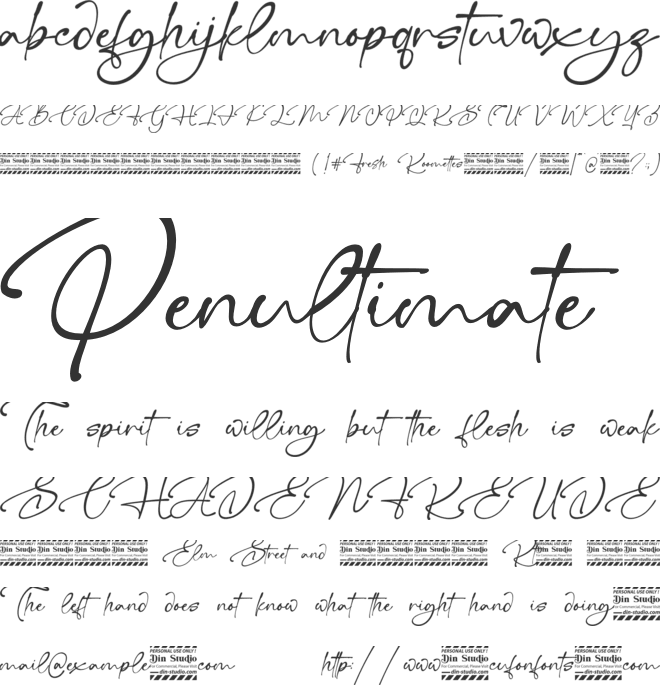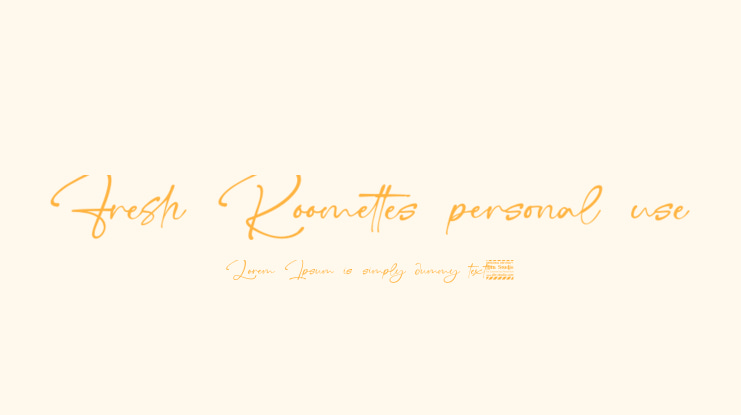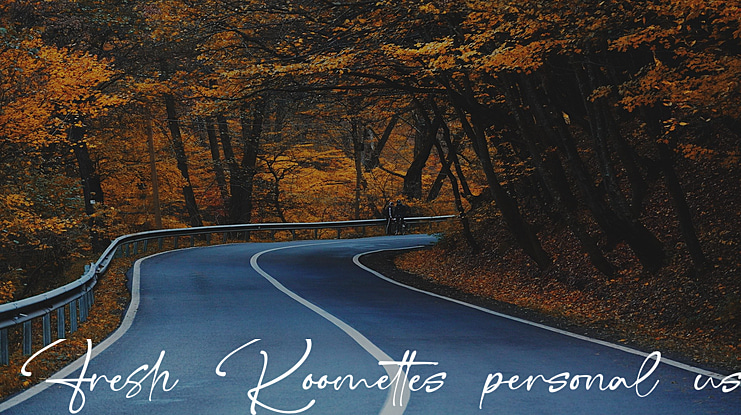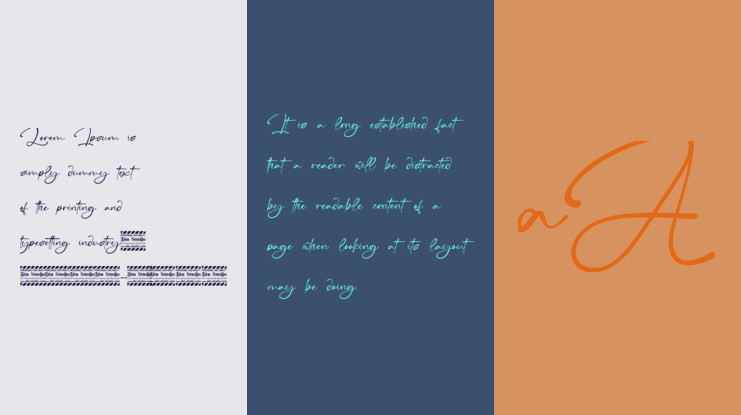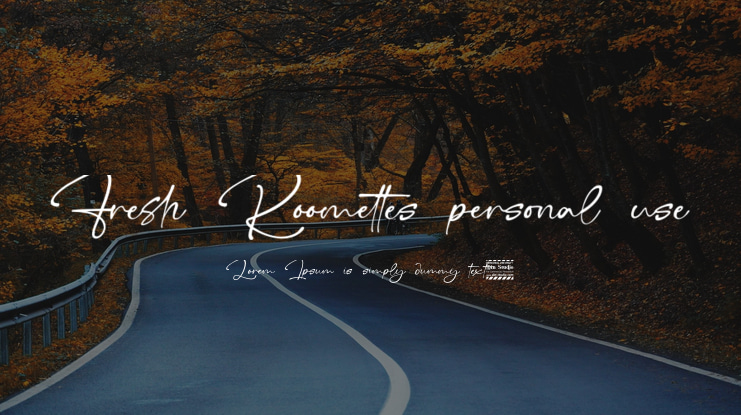
Fresh Roomettes is an elegant signature font. Every swash, stroke, and curve was created to entice
happiness and elegance. Great choice for your logo, book cover, poster, t-shirt, branding, and
advertisement needs.